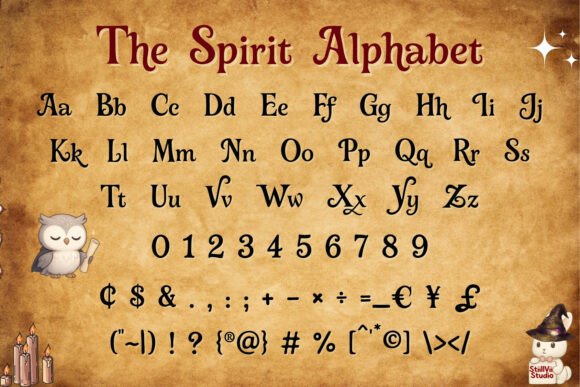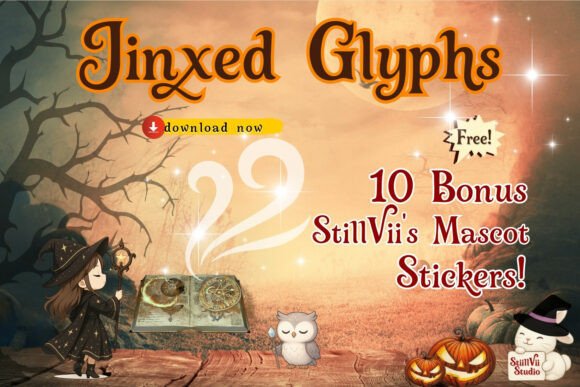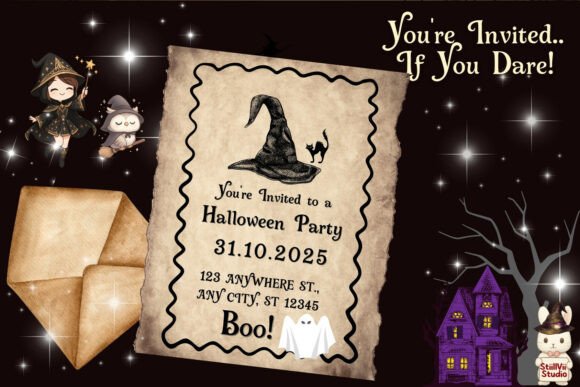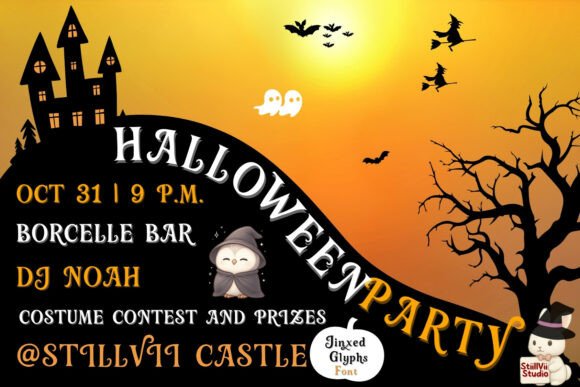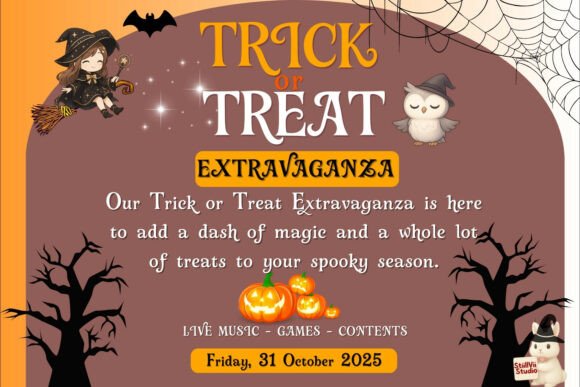
Introduction to Jinxed Glyphs Font
As a designer, there’s nothing quite like the thrill of bringing a creative project to life. You’re rummaging through your font library, searching for the perfect script to give your design a touch of magic. And then, you stumble upon it – the Jinxed Glyphs Font. Its enchanting swirls and gothic elegance transport you to a world of ancient tomes and whispered incantations.
With its high-quality design and transparent background, this font is a valuable addition to any designer’s toolkit. Whether you’re working on a spooky Halloween project or a whimsical fantasy design, the Jinxed Glyphs Font is sure to cast a spell. And the best part? It’s available for free download, making it an accessible design resource for creatives of all levels.
Key Features of Jinxed Glyphs Font
- High-quality, unique font design for creative projects, ideal for designers and artists
- Transparency options available for use on transparent backgrounds, ensuring seamless design integration
- Font size: scalable, with resolution up to 300 DPI for high-quality printing and digital use
- Unique characteristics: bold, cursive, and script styles, with intricate details and flourishes
- Perfect design resource for creative projects, including logos, branding, and typography-based artwork
Honest Review: Jinxed Glyphs Font
I recently stumbled upon the Jinxed Glyphs Font and was intrigued by its unique design. As a designer, I always appreciate a high-quality font that can elevate my creative projects.
What works well: ✨ The Jinxed Glyphs Font has a bold, edgy feel that’s perfect for projects that need a bit of attitude. The font is also highly versatile, making it suitable for a wide range of creative applications, from logos to graphics.
- Works well for bold, edgy designs
- Highly versatile and suitable for various creative applications
However, there are a few limitations: ⚠️ The font may not be suitable for projects that require a more refined or elegant look. Additionally, the font’s bold style may be overwhelming in some designs.
Overall, I’m impressed with the Jinxed Glyphs Font. While it may not be the perfect fit for every project, it’s a valuable addition to any designer’s toolkit. I’d definitely recommend it to anyone looking for a bold, eye-catching font.
How to Use Jinxed Glyphs Font
To get the most out of the Jinxed Glyphs Font, experiment with different font sizes, colors, and styles. You can also combine the font with other design elements to create a unique look.
The Jinxed Glyphs Font is ideal for creative projects, such as graphic design, digital art, and typography. It’s also great for use in presentations, documents, and websites.